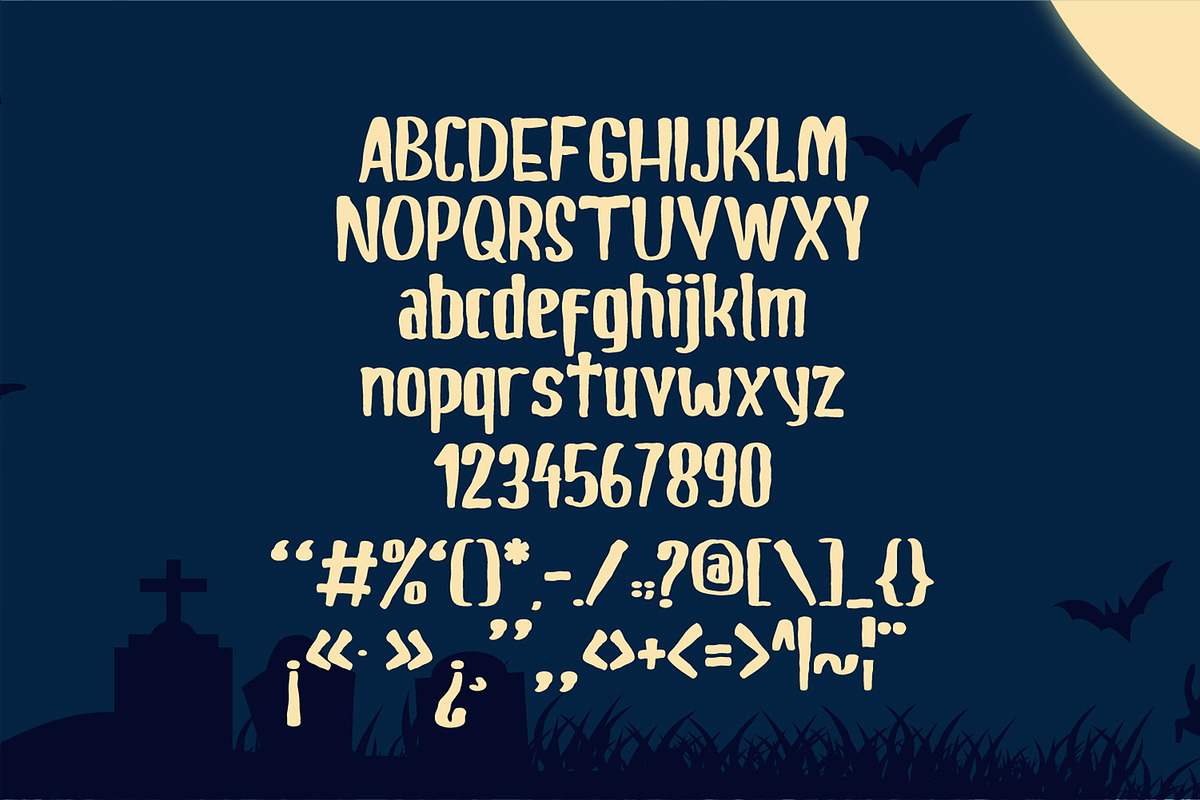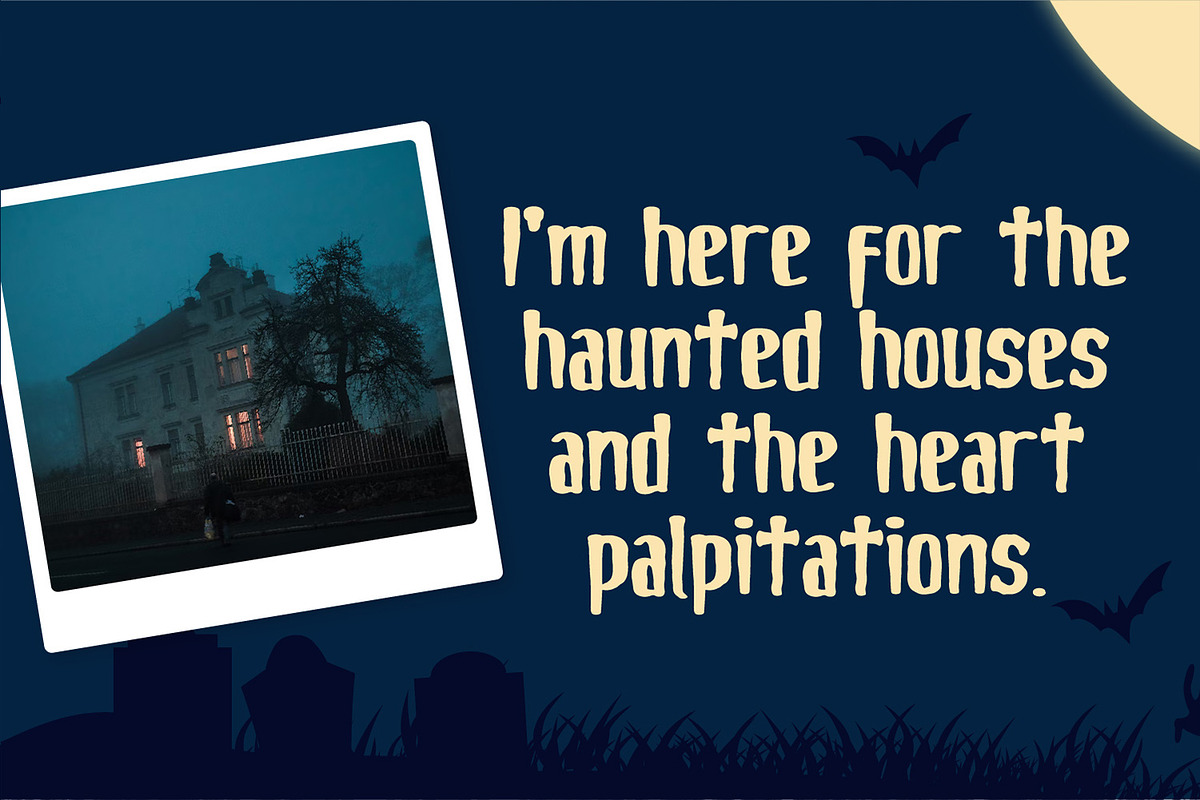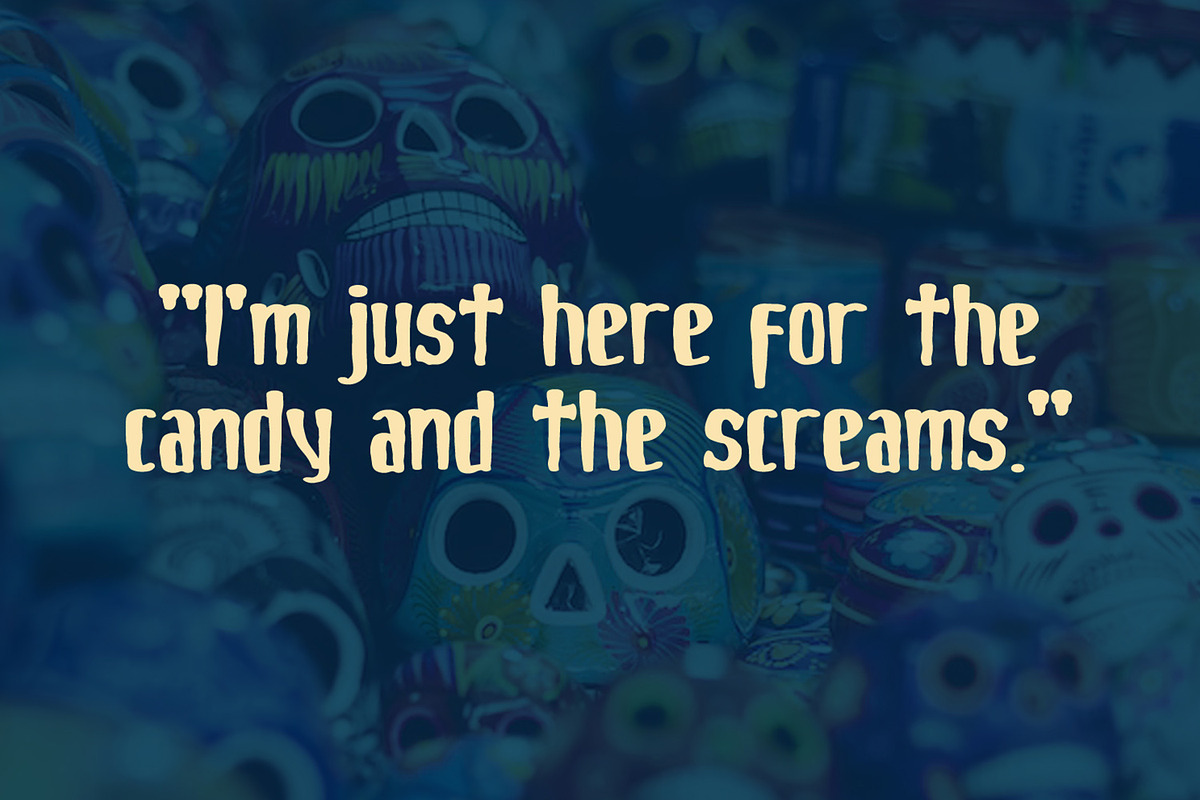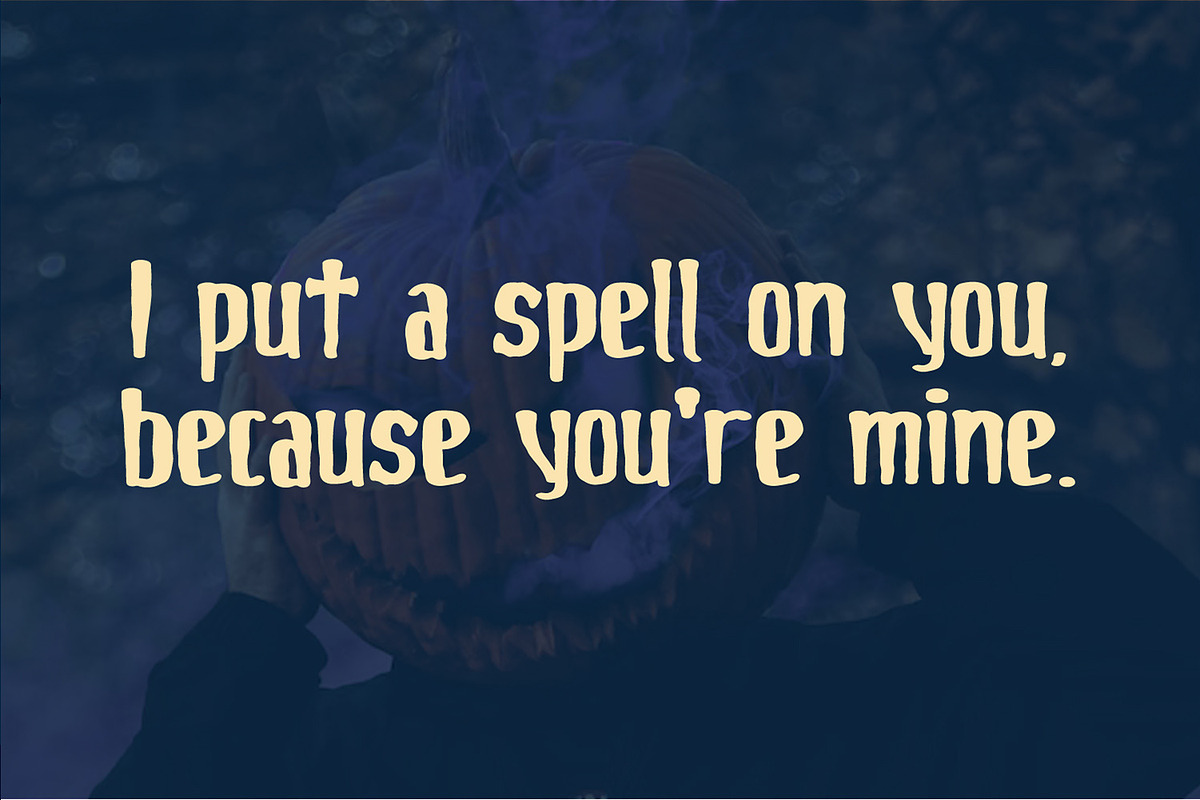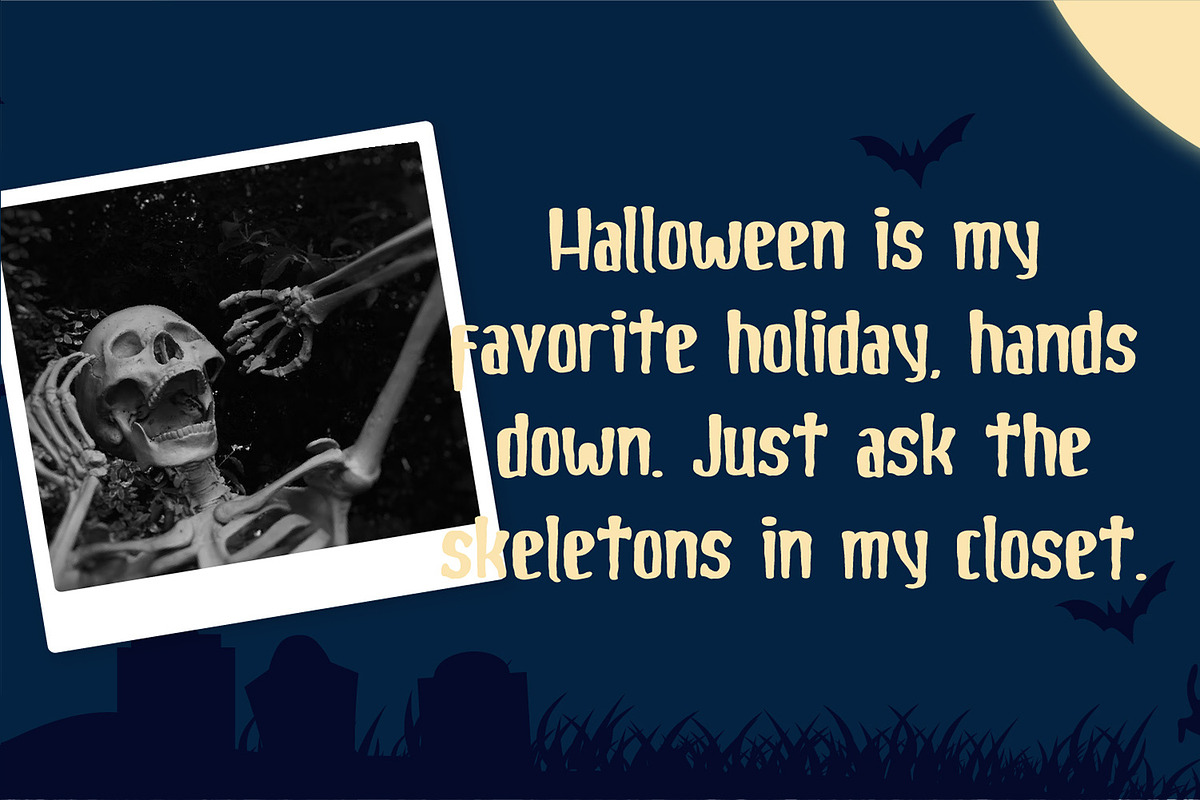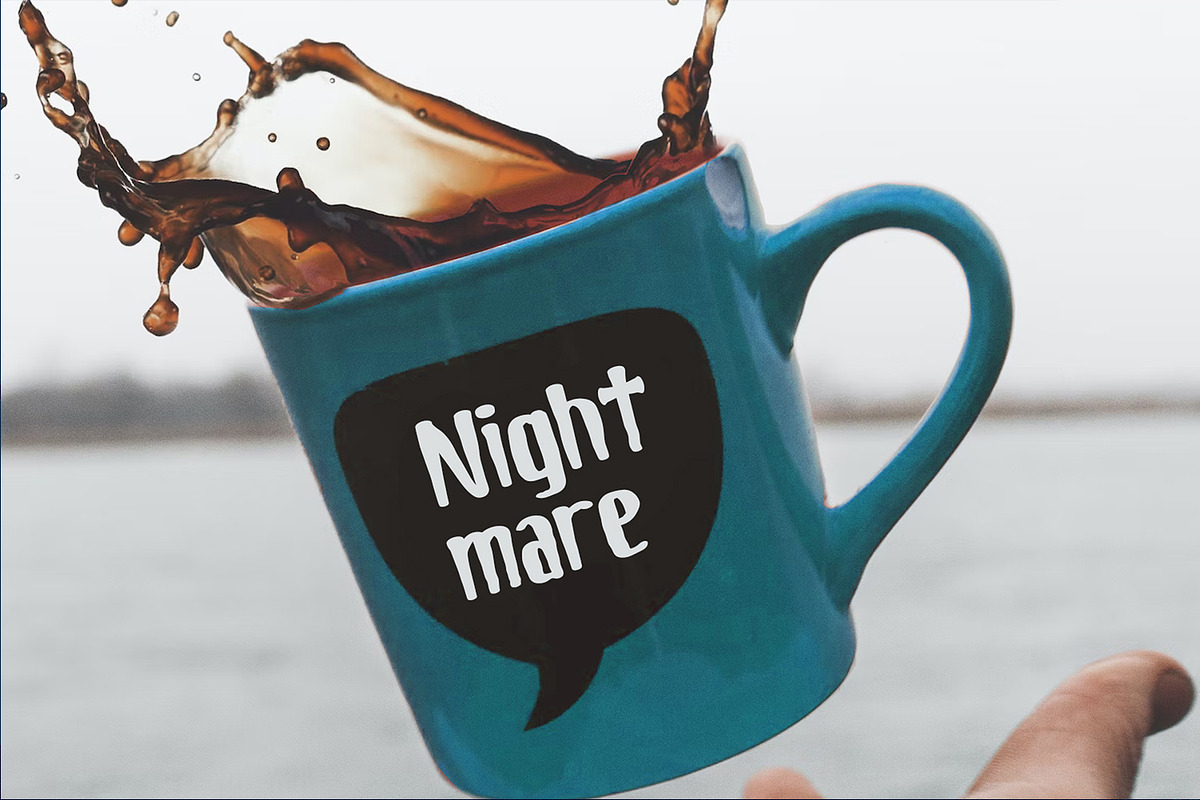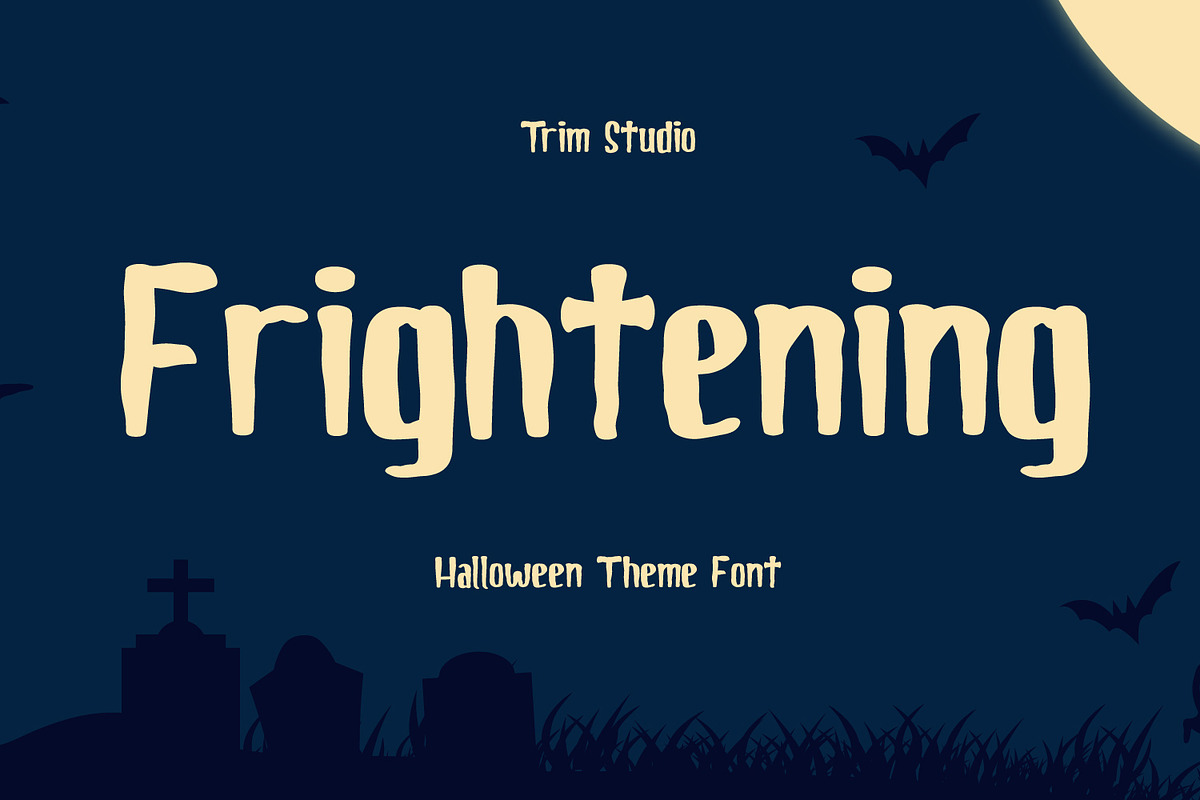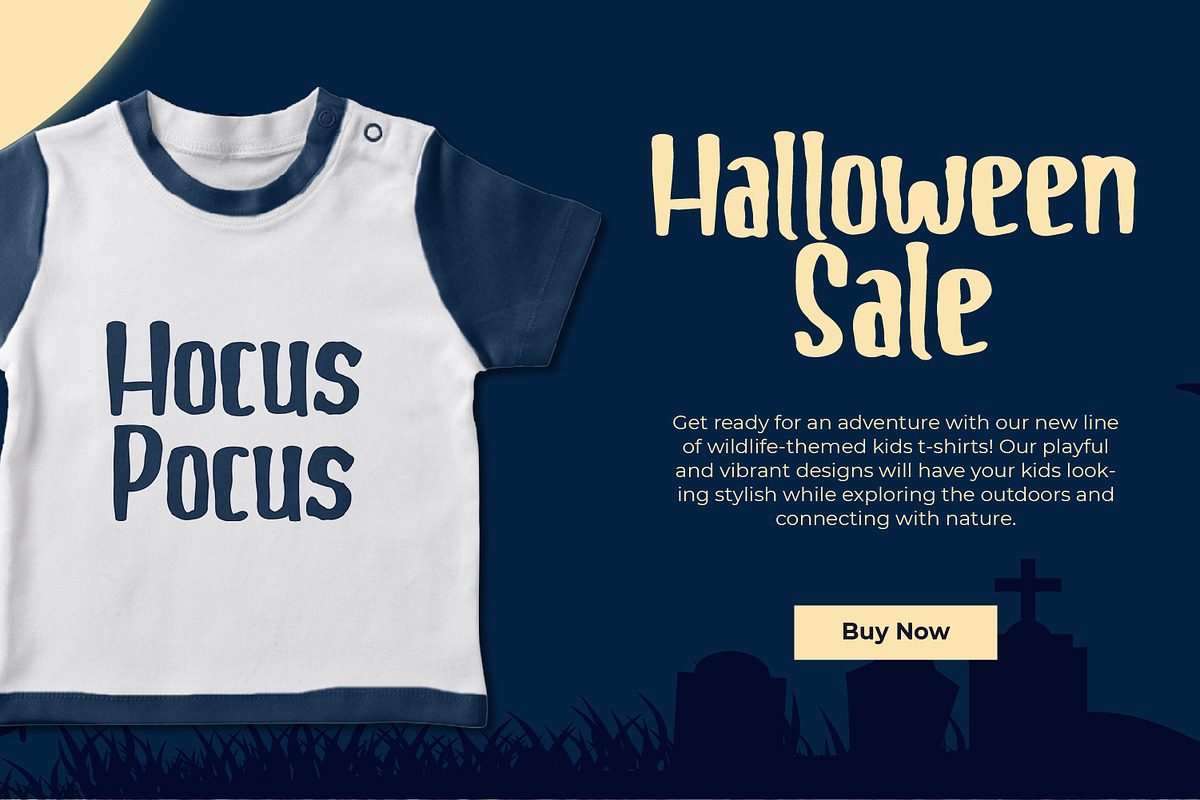
Frightening Scary Halloween
Frightening is a fun and scary font that resembles dripping blood. Its simple and playful design adds a touch of spooky excitement to your Halloween-themed projects.